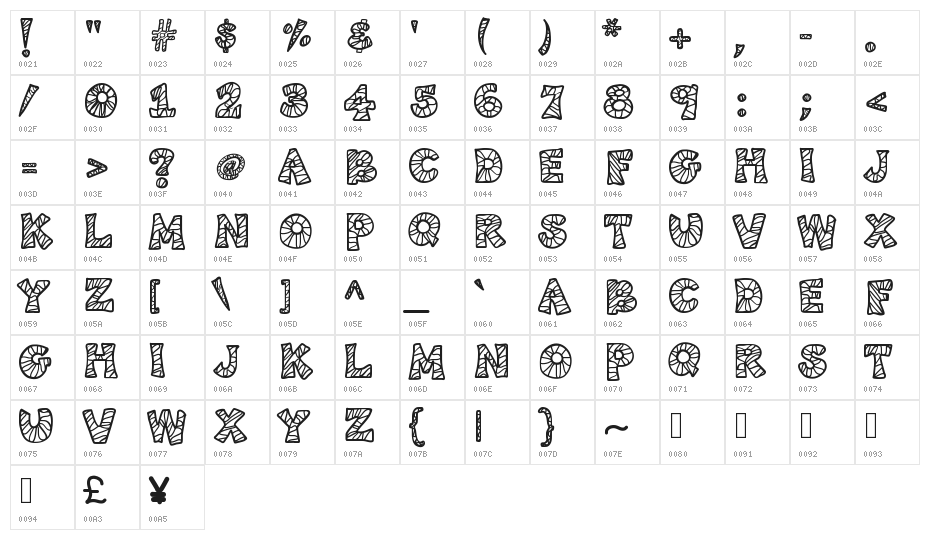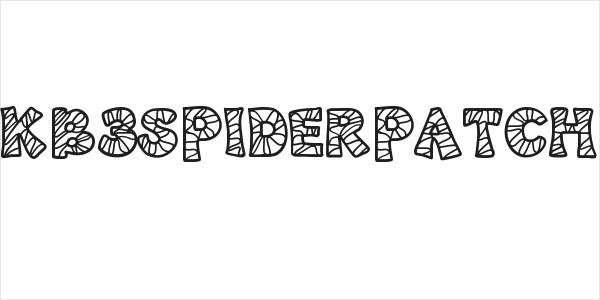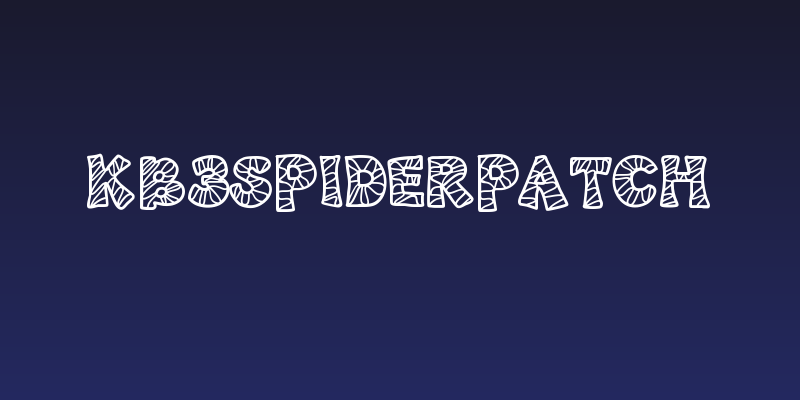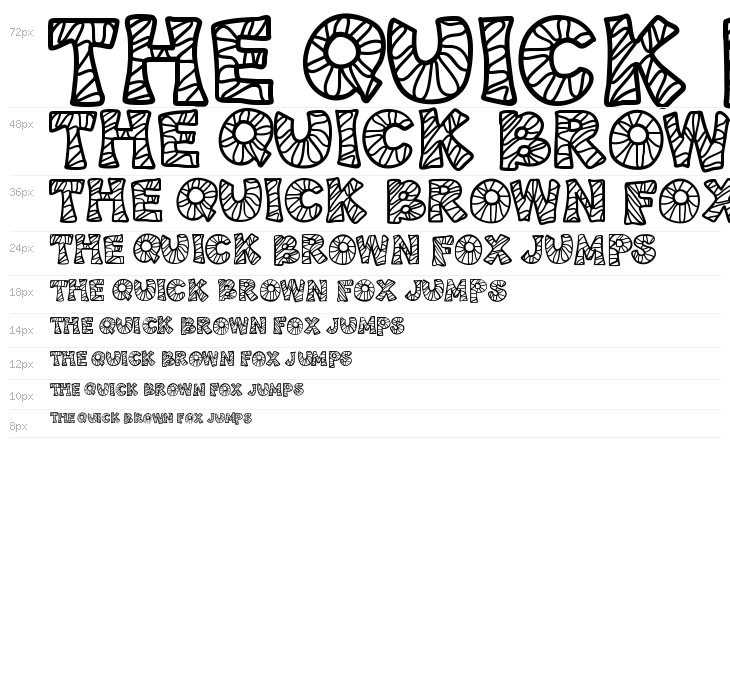
KB3SpiderPatch Font
KB3SpiderPatch Description
This font features a playful and whimsical design, characterized by bold, hand-drawn letters with intricate patterns inside each character. The patterns resemble spider webs or patchwork, giving the font a unique and artistic flair. The uppercase and lowercase letters maintain a consistent style, with rounded edges and a slightly irregular shape that enhances the hand-crafted feel. The numbers and special characters are equally detailed, ensuring a cohesive look across all text elements. This font is ideal for projects that require a fun and creative touch, such as children's books, posters, or craft-related branding.
| Proposed Projects | Ideal for children's books, playful posters, craft branding, and creative invitations. |